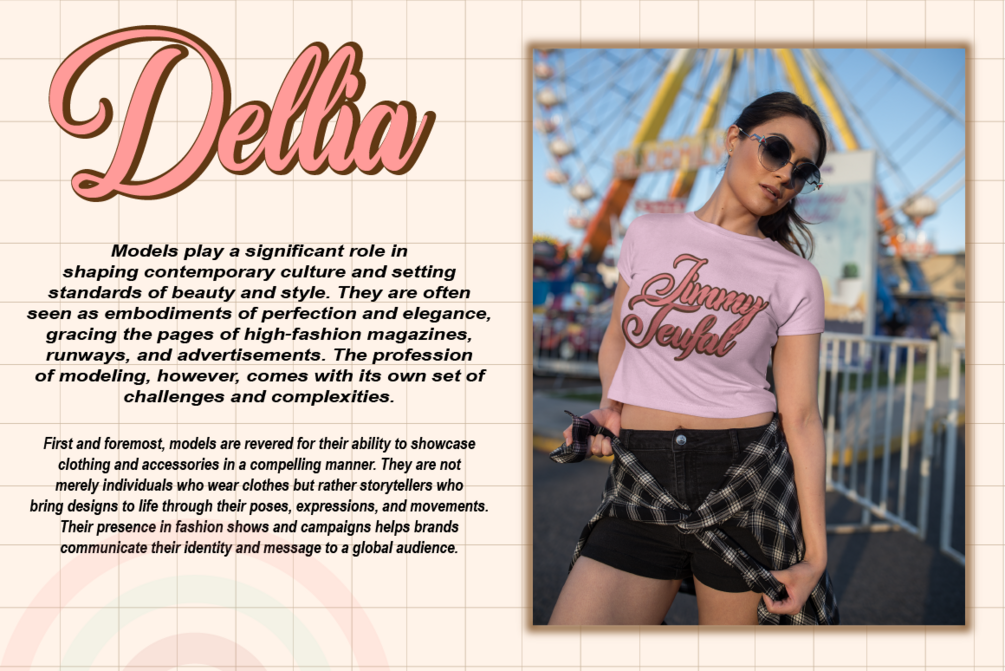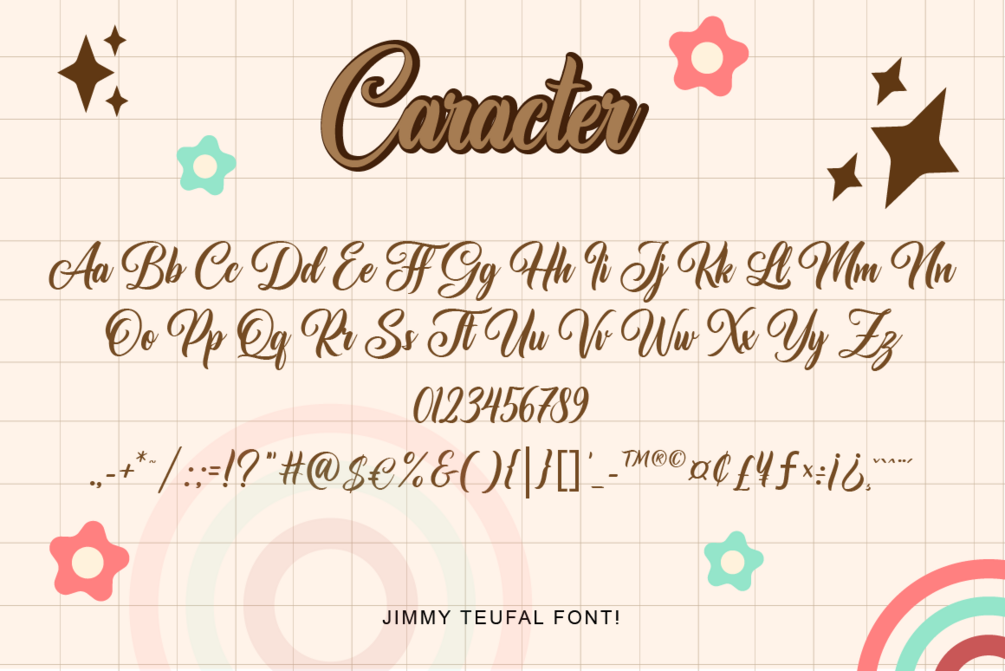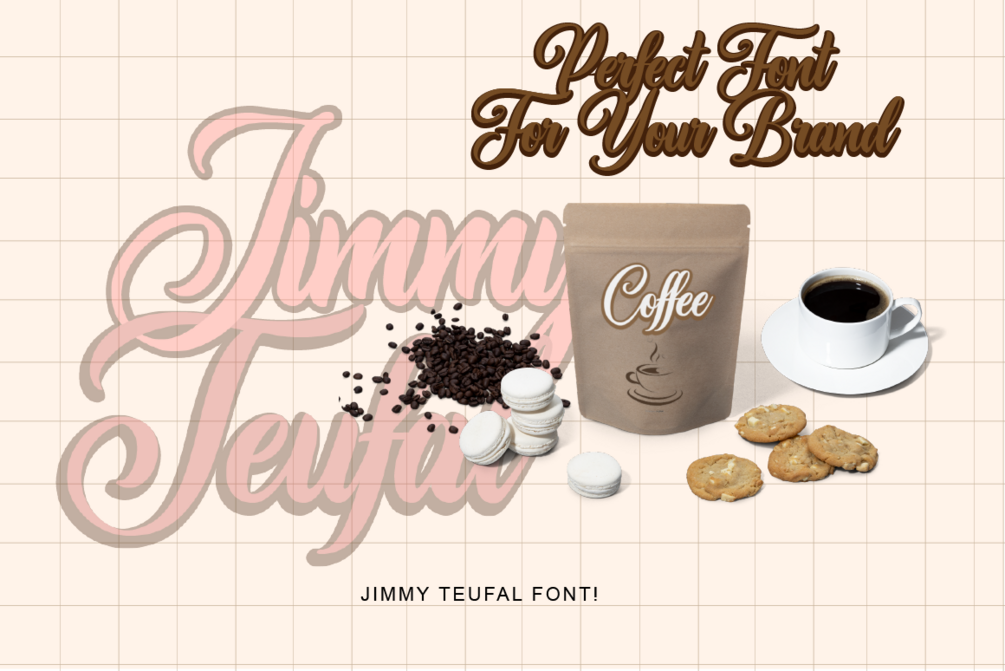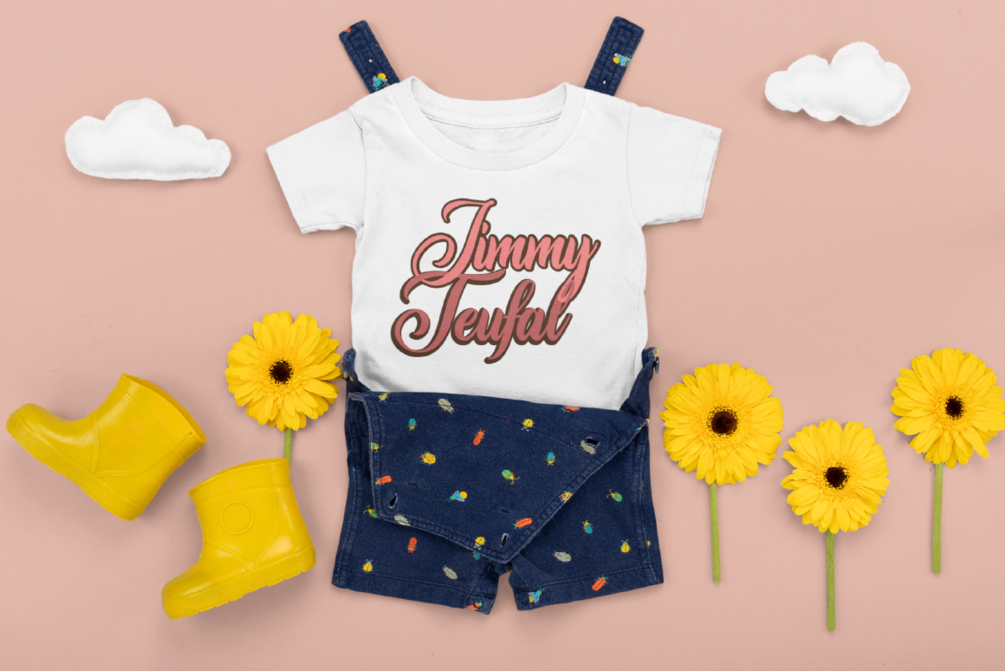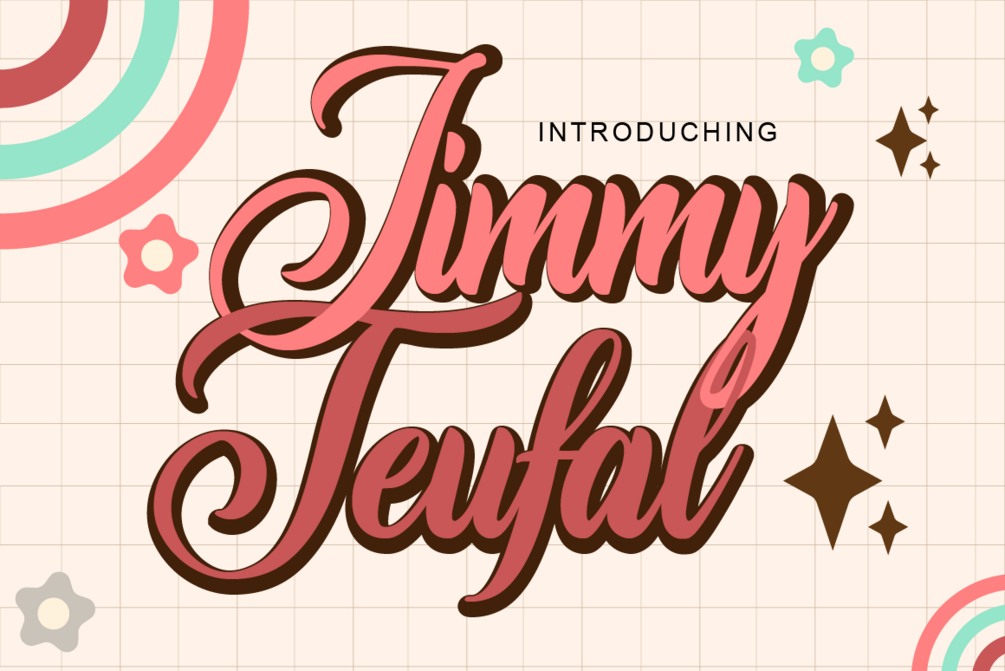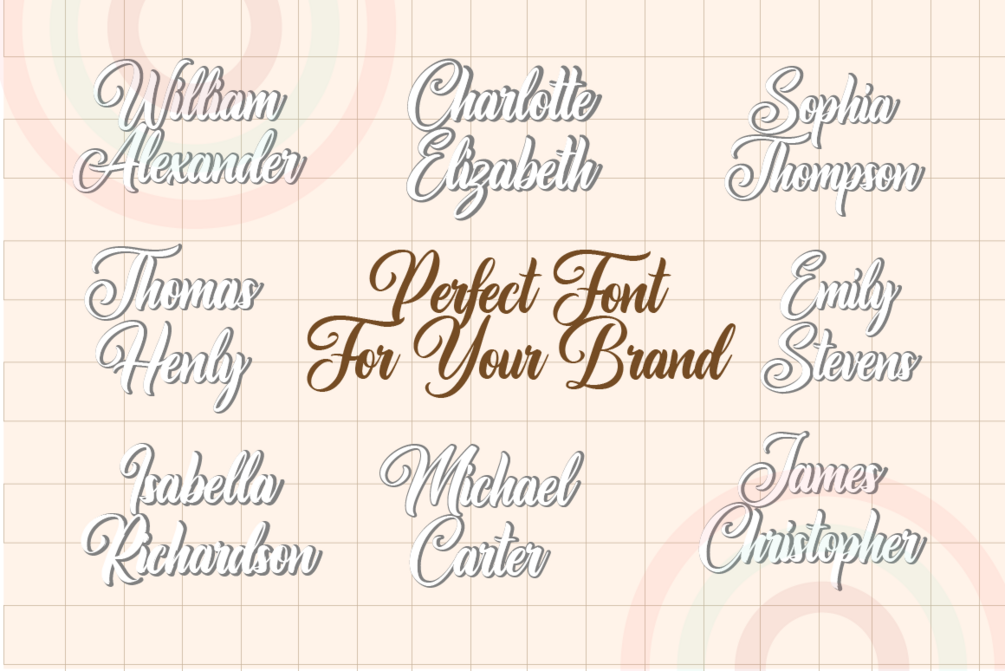
Jimmy Teufal
Jimmy Teufal is handwritten script font. This font would be perfect for photography, watermarks, social media posts, advertisements, logos & branding, invitations, product design, labels, stationery, product packaging, special events, and other projects.